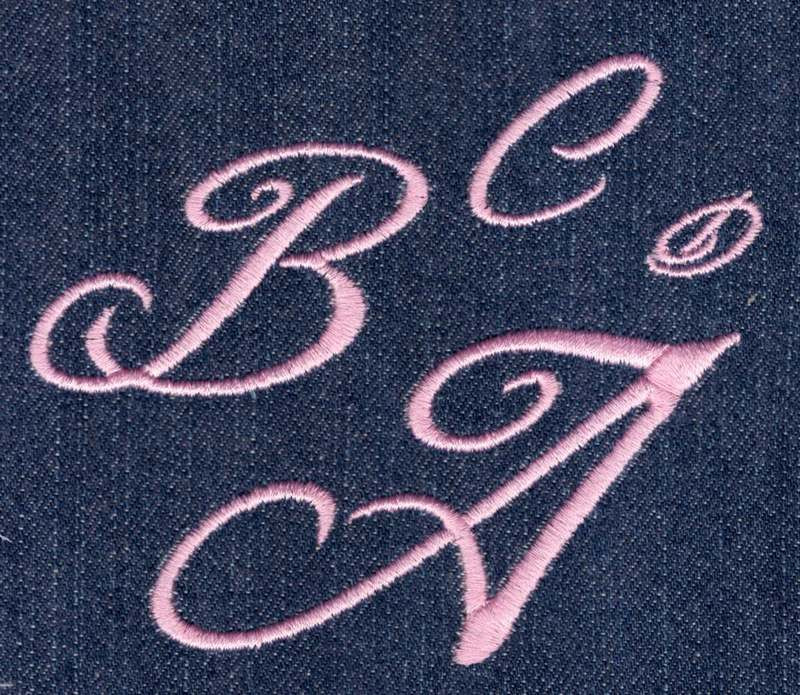
382 RSVP Satin Font
RSVP Satin Font comes in 0.5", 1", 1.5" and 2" heights. Height is based on the capital "A" and all other characters are sized proportionally. All sizes are finished in satin stitching and include uppercase letters and lowercase letters (no numbers or punctuation marks for this font). This font has thin and thick parts; the lowercase letters in the 0.5" size are extremely small and require a lower thread tension and proper stabilization to insure proper stitchout.